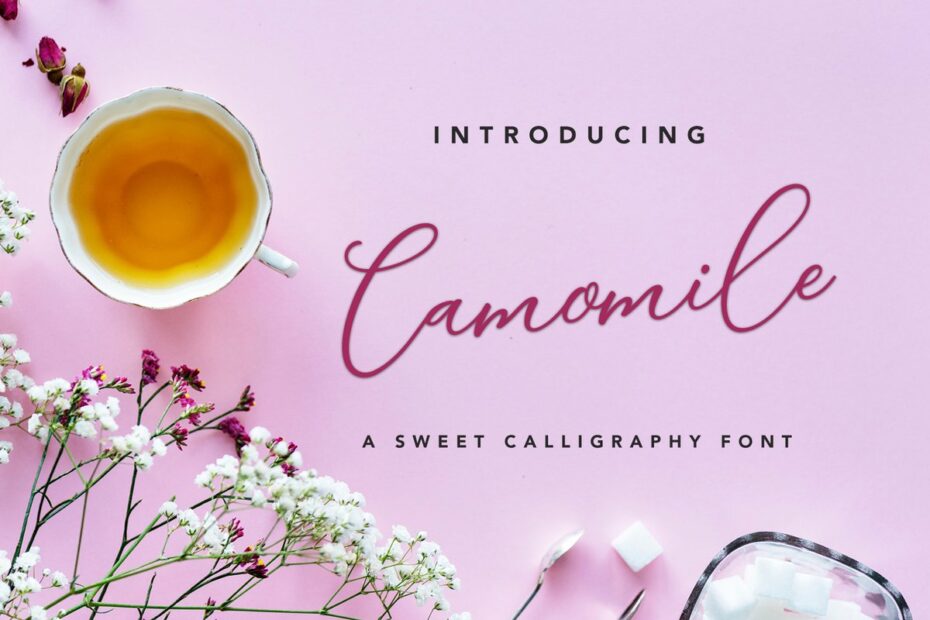
Unleashing the Artistry of Handwritten Letters
As you sit down to create, the blank page stares back at you, waiting for the magic to begin. The scribble of a pen, the dance of a brush, or the click of a keyboard – the possibilities are endless. For designers, the thrill of bringing a concept to life is a never-ending adventure. And, at the heart of this journey, lies the art of typography. A well-chosen font can elevate your message, adding a touch of sophistication and elegance that resonates with your audience.
Enter the Camomile Script Font, a stunning calligraphy font that boasts over 350 glyphs. This versatile font is perfect for designers seeking to add a touch of whimsy and charm to their projects. With its intricate details and flowing lines, the Camomile Script Font is a valuable asset for any designer looking to take their work to the next level.
Camomile Script Font Key Features
- Font Family: Camomile Script
- Unique Characteristics: Elegant, cursive script design; perfect for creating a soothing and calming atmosphere in branding, advertising, and editorial content
- Language Support: Supports a wide range of languages, including Latin, Cyrillic, and Greek alphabets
Designer Review: Camomile Script Font
Overall, I’d say Camomile Script Font is a nice addition to any designer’s toolkit. Here’s what I like about it:
- ✨ Its elegant and refined feel makes it perfect for high-end branding and packaging projects.
- ✨ The font is highly customizable, with a wide range of opacities and blending modes to play with.
- ✨ It’s a great choice for creating beautiful, handwritten-style typography that’s both modern and timeless.
- ⚠️ The font is quite thin and may not be the best choice for body text or any content that requires a lot of legibility.
- ⚠️ Some users may find the font’s irregularities and inconsistencies to be distracting or difficult to read.
Overall, I’d give Camomile Script Font 3.5 out of 5 stars. It’s a beautiful and versatile font that’s perfect for certain types of projects, but it may not be the best choice for every situation. With a bit of caution and careful use, however, it can be a great addition to your design toolkit.
The Camomile Script font is perfect for creating elegant and sophisticated designs. Some common use cases include:
Editorial and publishing designs
Use the Camomile Script font to add a touch of elegance and sophistication to your designs.
Alternatives to Camomile Script Font
Camomile Script Font is a beautiful, elegant script font ideal for wedding invitations, branding, and other creative projects. However, it may not be suitable for every project. Here are some alternatives to consider:
Great Vibes Font is a modern, elegant script font perfect for creative projects such as wedding invitations, branding, and editorial design. It features a fluid, connected look and is ideal for projects where a sense of movement and flow is desired. Great Vibes Font is similar to Camomile Script Font in its elegance and sophistication, but has a more modern and dynamic feel.
Carolyna Pro Font is a beautiful, elegant script font ideal for high-end branding, packaging, and editorial design. It features a classic, sophisticated look with a touch of modernity. Carolyna Pro Font is similar to Camomile Script Font in its elegance and sophistication, but has a more refined and polished feel.
Pacifico Font is a beautiful, elegant script font inspired by the Pacific coast of Mexico. It features a fluid, connected look with a touch of whimsy and playfulness. Pacifico Font is similar to Camomile Script Font in its elegance and sophistication, but has a more relaxed and casual feel.
Alex Brush Font is a beautiful, elegant script font perfect for creative projects such as wedding invitations, branding, and editorial design. It features a classic, sophisticated look with a touch of modernity. Alex Brush Font is similar to Camomile Script Font in its elegance and sophistication, but has a more refined and elegant feel.